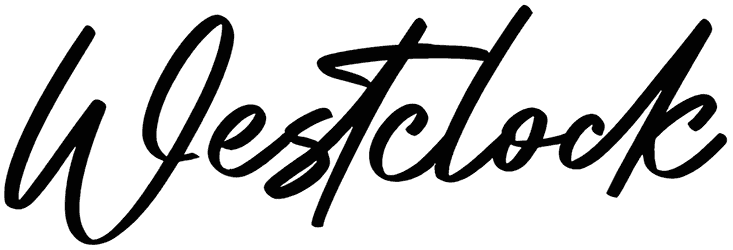
Aesthetically speaking, Westclock font was created pretty creatively, and it puts the utmost to giving off a retro and stylish theme to any graphic designs. Regarding its classy and elegant lines, the handwritten font without numbers and punctuation can work great for fashion apparel, greeting cards, or any other kind of design that requires a warm and friendly face.